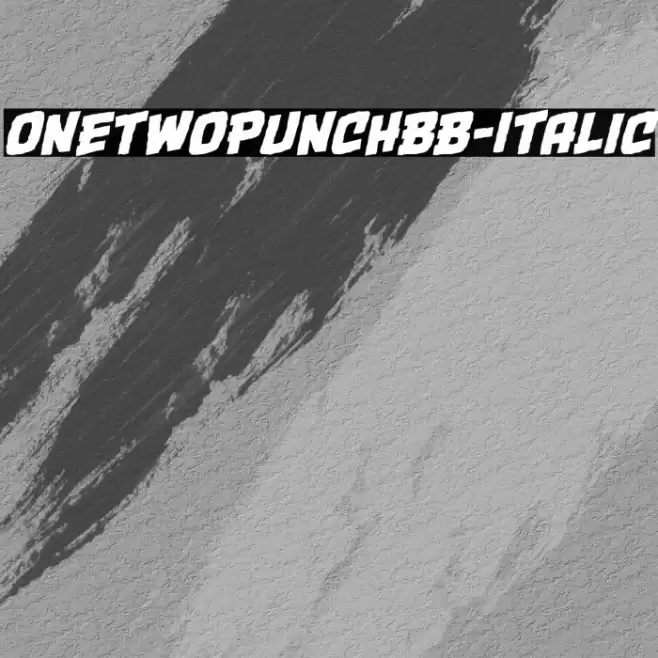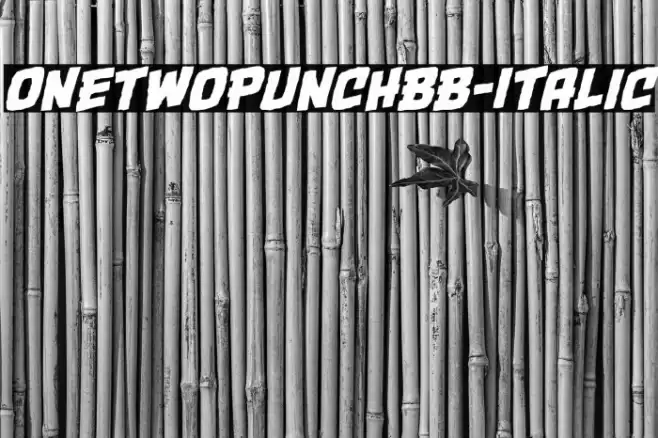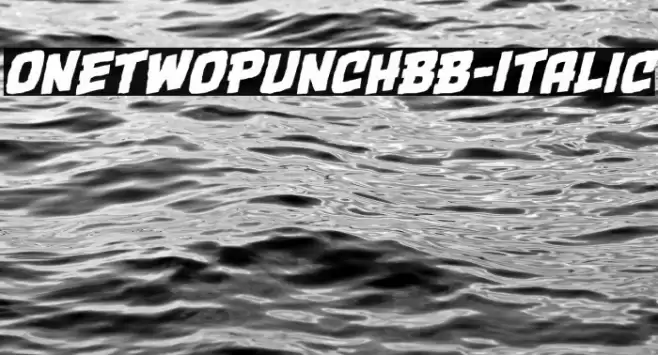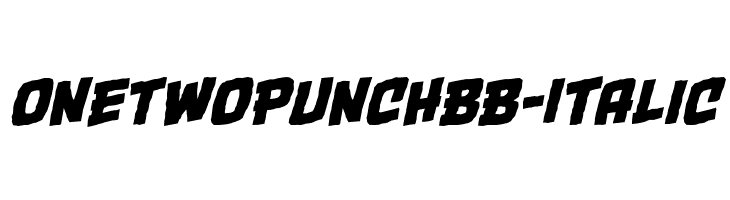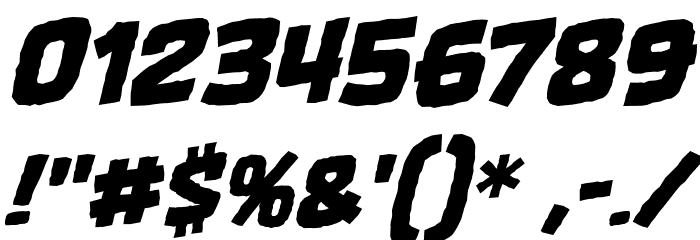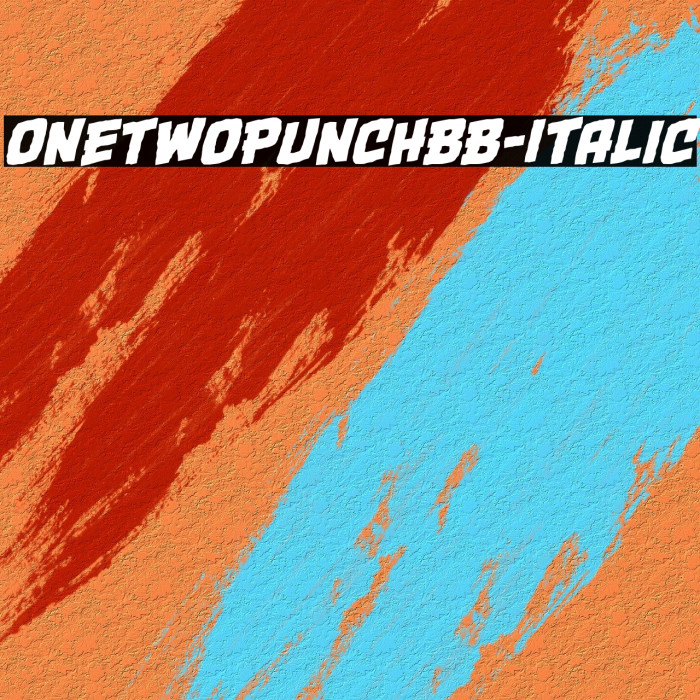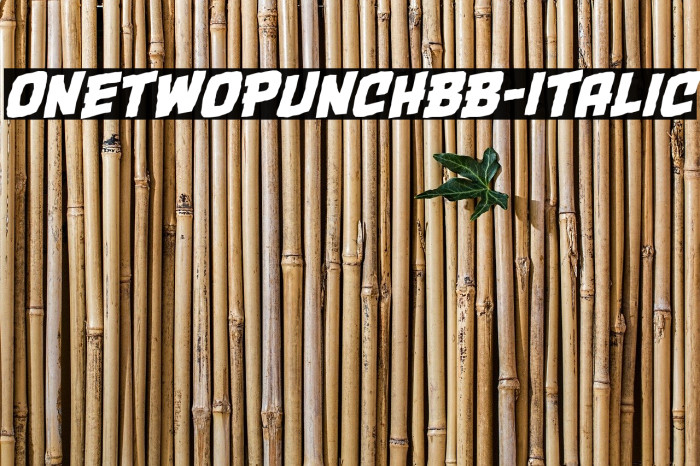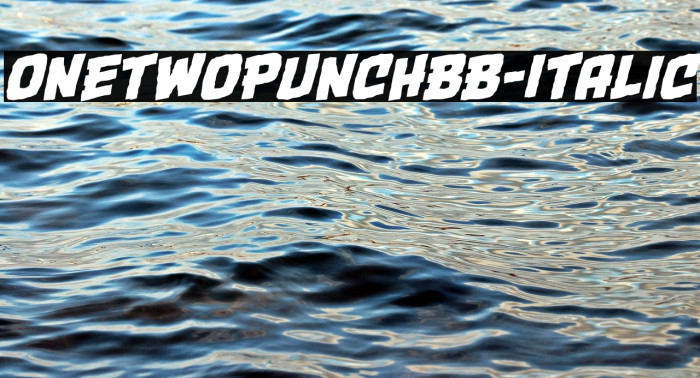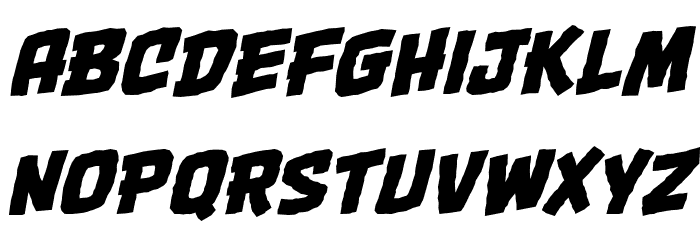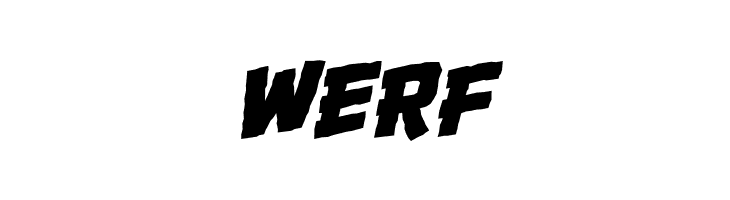
OneTwoPunchBB-Italic Font
OneTwoPunchBB-Italic Description
This bold and dynamic font features a strong, italicized style with a distinct slant, giving it a sense of motion and energy. The characters are thick and robust, with a slightly rough edge that adds a touch of ruggedness. The uppercase and lowercase letters maintain a consistent style, with wide strokes and a compact form. The numbers and special characters follow the same bold and energetic design, making them stand out prominently. This font is ideal for projects that require a strong visual impact, such as sports branding, action-themed posters, or dynamic headlines.
A bold, italicized font with a dynamic and energetic style from Uncategorized fonts.
- Proposed Projects: Ideal for sports branding, action-themed posters, dynamic headlines, and impactful advertising.
- Character Spacing: Tight
- Overall Style: Dynamic and Energetic